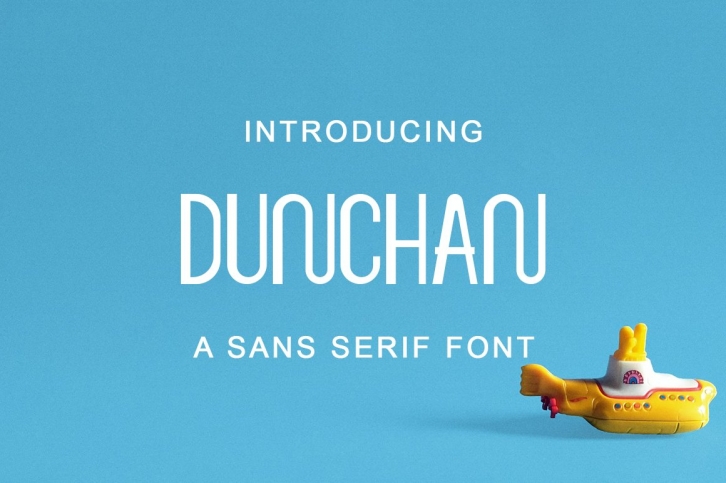
Dunchan is a trendy and unique font with an authentic style. It was designed by Tychitype and it's a great choice for creative people who need such a font. It was released on April 22, 2021 and the file size is 1.62 MB. Dunchan will add an organic vibe to any design idea!